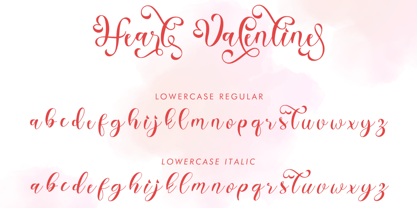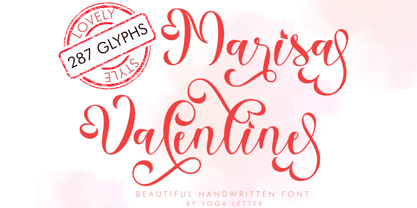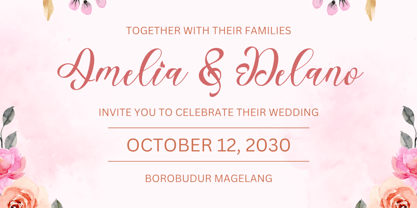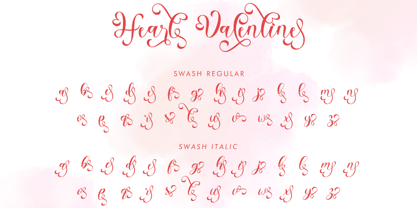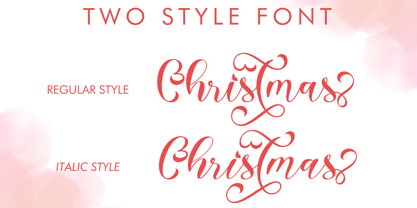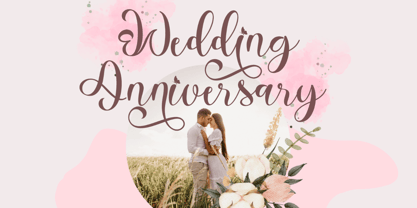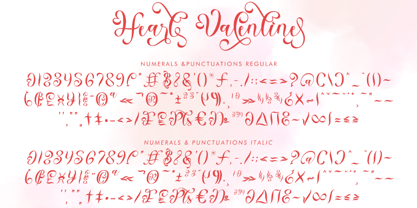
Marisa Valentine Italic
by Yoga Letter
The Marisa Valentine Italic Font Family was designed by Isroni Yoga Prasetya and published by Yoga Letter. Marisa Valentine Italic contains 2 styles and family package options. More about this family
"Marisa Valentine" is a beautiful and pretty handwritten font. This font features uppercase, lowercase, swashes, alternates, numbers, punctuation, and multilingual support. It's perfect for Valentine's Day, Christmas, weddings, invitations, winter, spring, photography, holidays, Thanksgiving, fall, YouTube titles, New Year's, printing, banners, branding, and more.